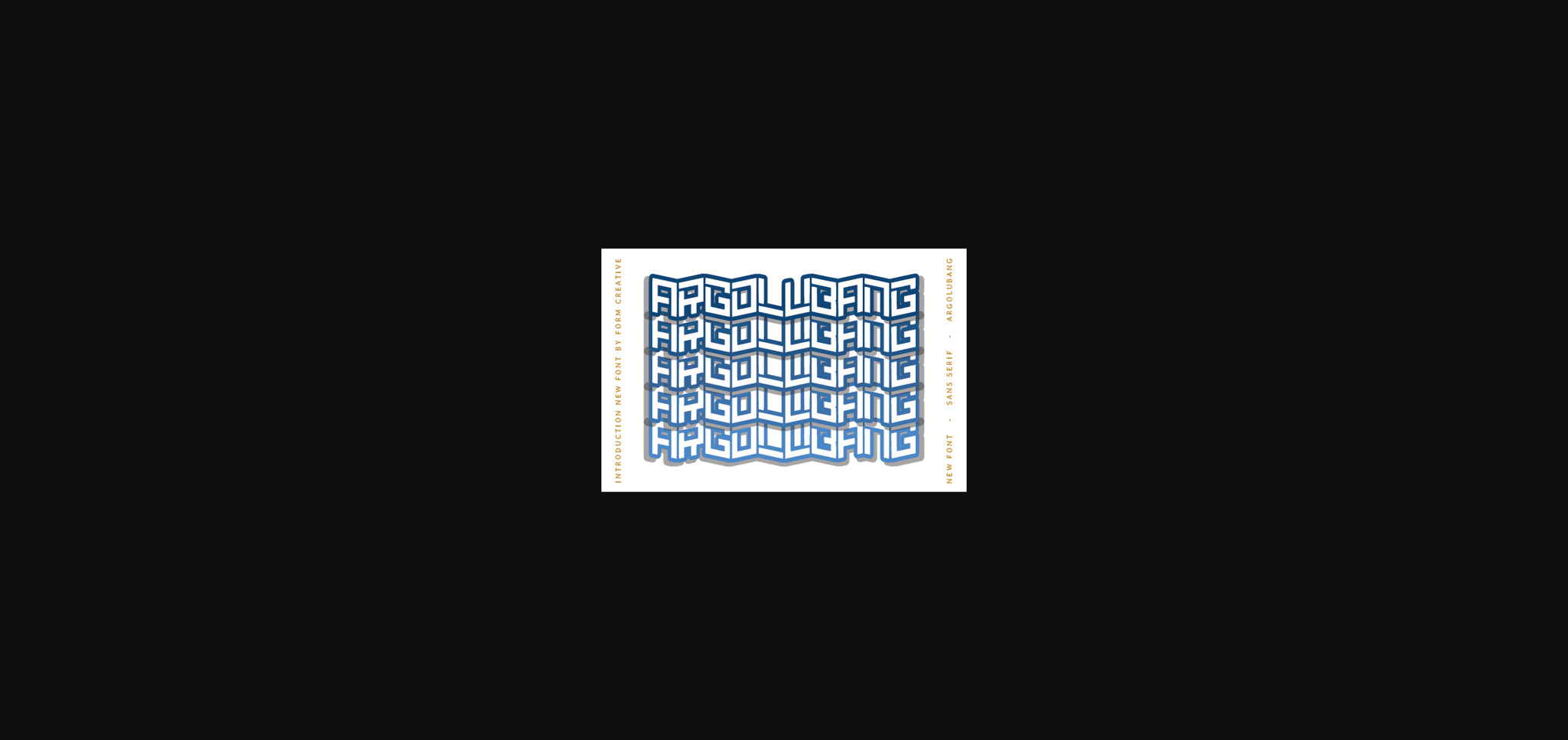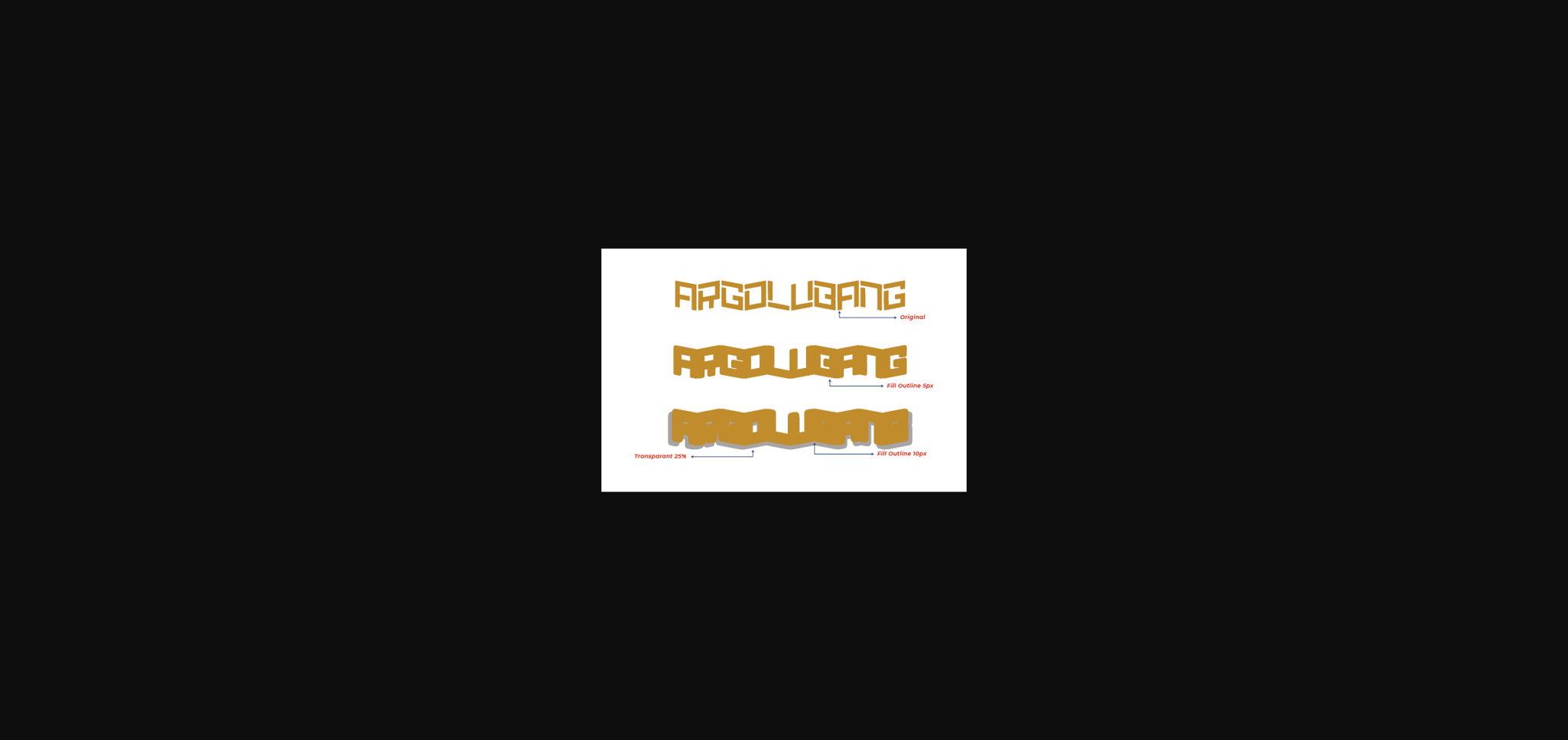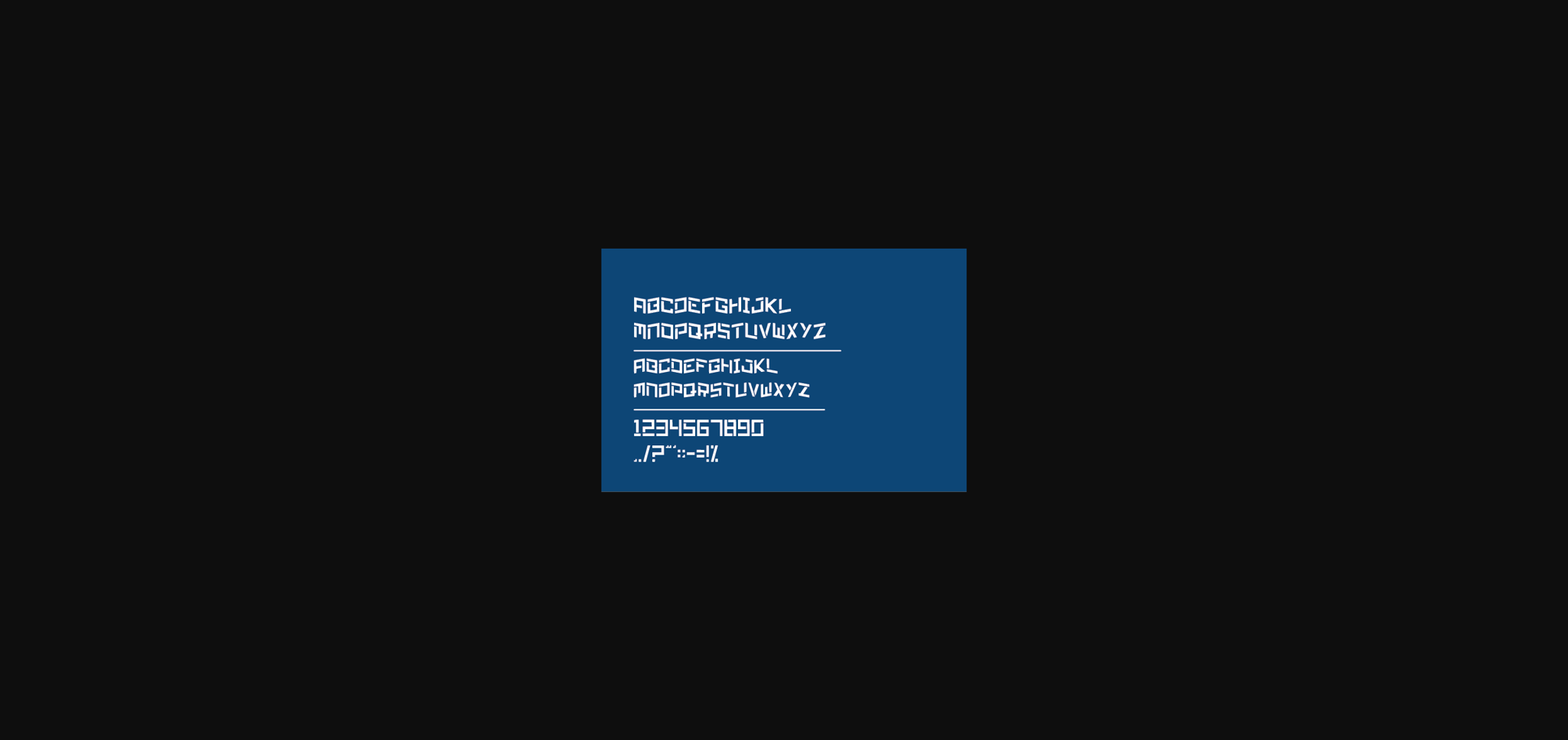
About Argolubang Font
Argolubang is a bold and powerful sans-serif font with a stylish look. This font is suitable for hard designs, posters, quotes, branding, etc.